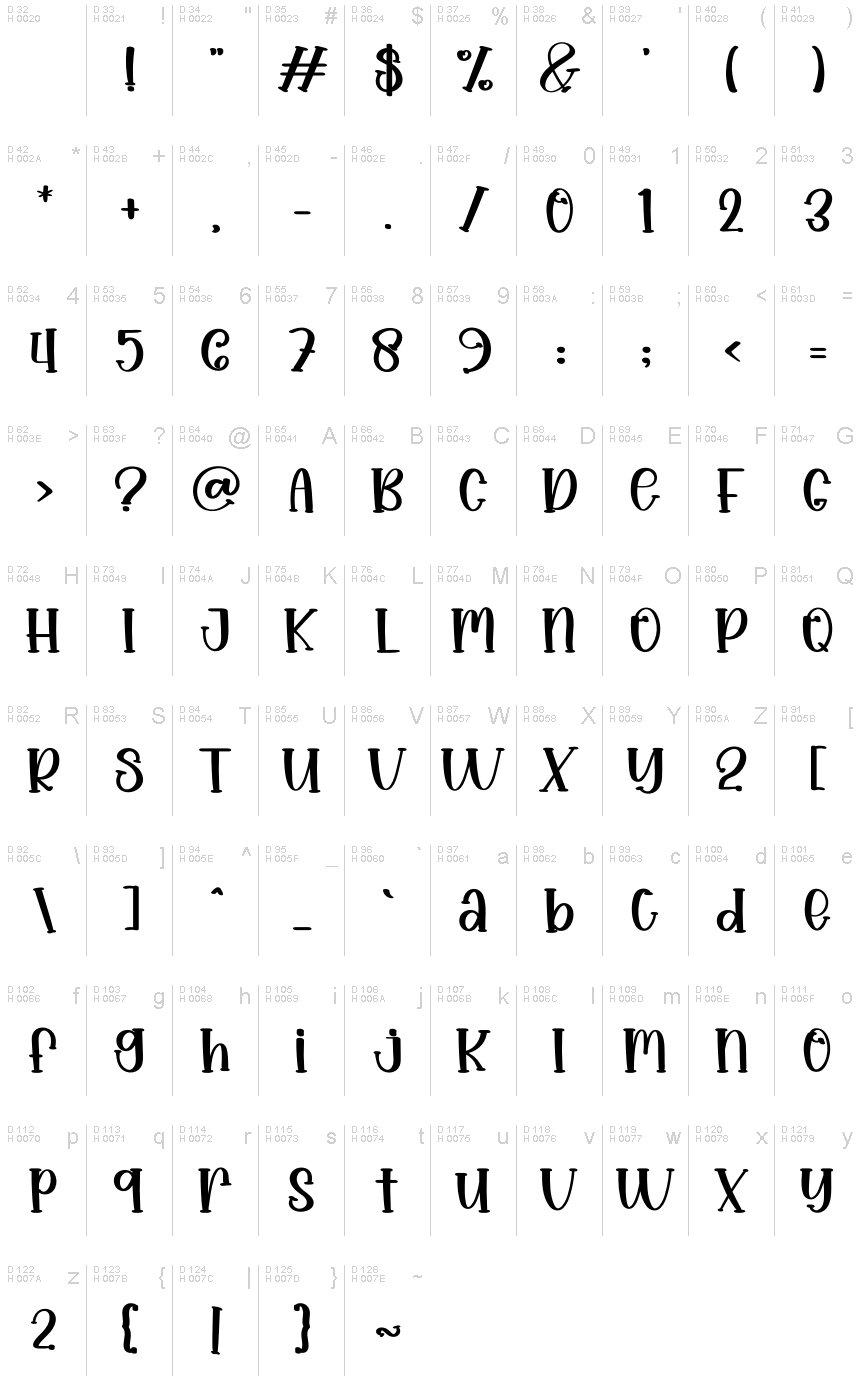
Snack Crispy
Snack Crispy, designed by FreshtypeINK, is a playful and lively font that leaps off the page with its cartoonish charm. Its bold, rounded letters are crafted to capture the whimsy and fun of informal designs, making it a perfect choice for eye-catching headlines or vibrant logos. The bouncy rhythm of Snack Crispy's characters gives off an energetic vibe that is sure to engage a youthful audience.
Ideal for projects that require a dash of cheerfulness, this display typeface shines in contexts such as children's books, party invitations, product packaging for treats or toys, and any other design space where a touch of lightheartedness is desired. Snack Crispy invites designers to infuse their work with its infectious enthusiasm and spirited personality.